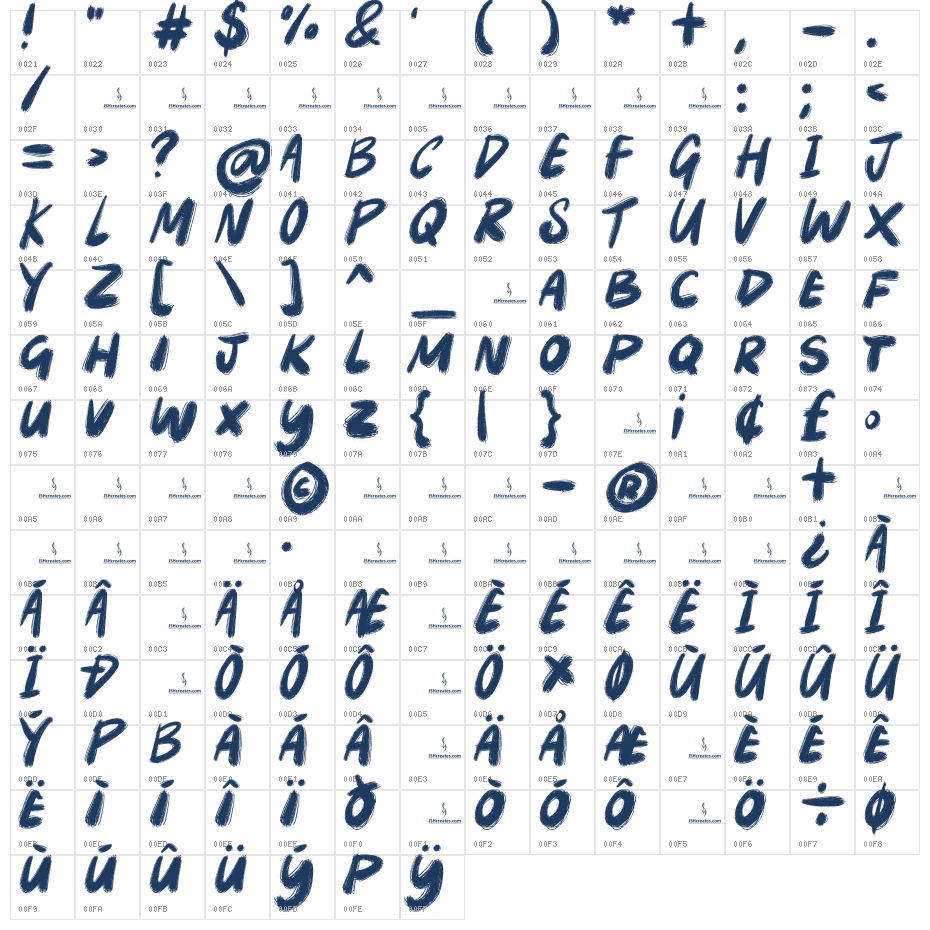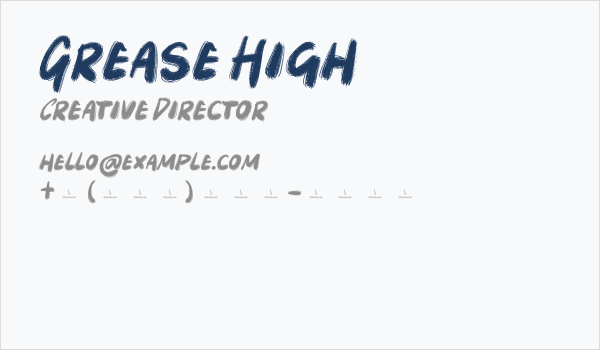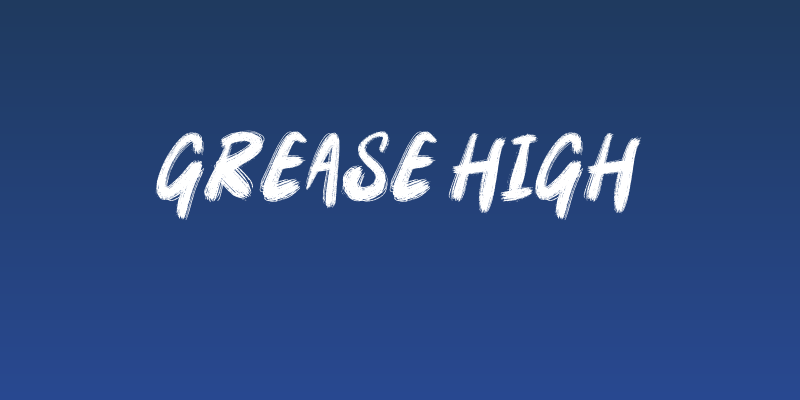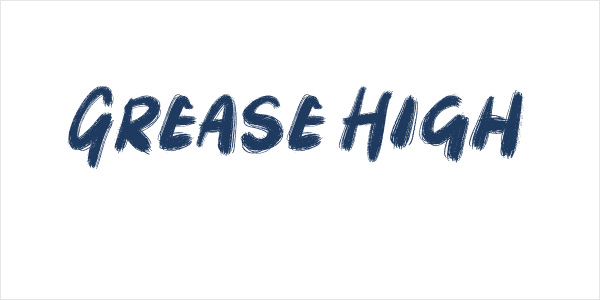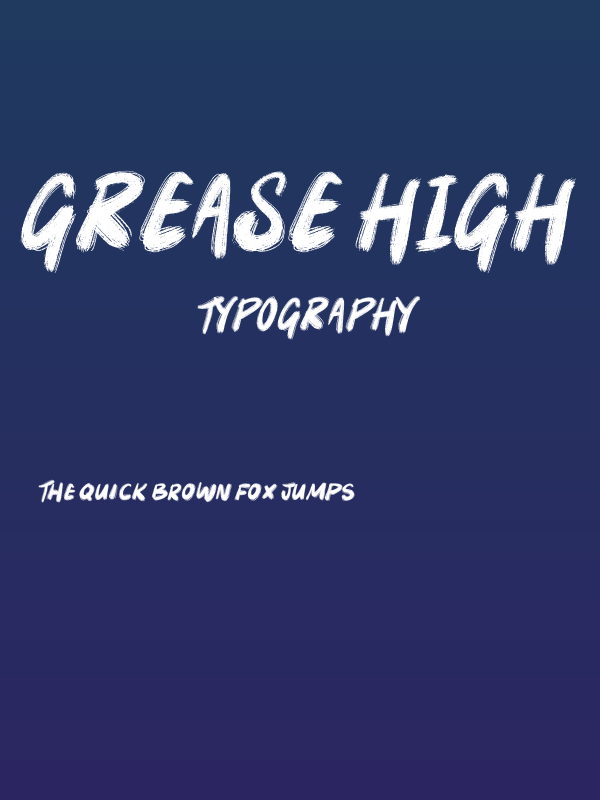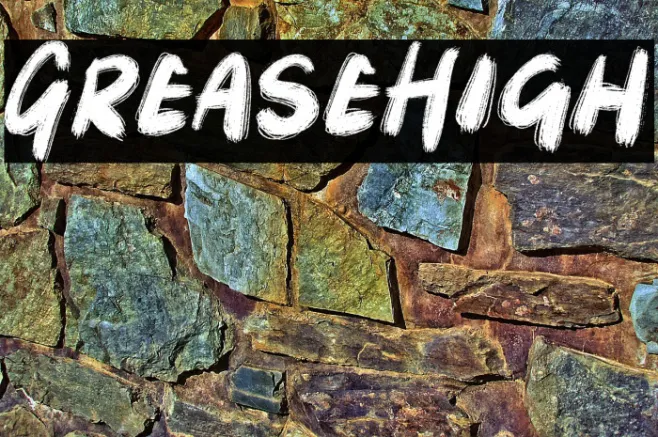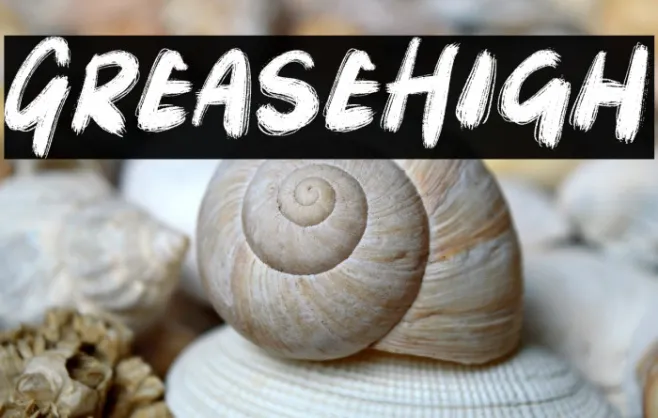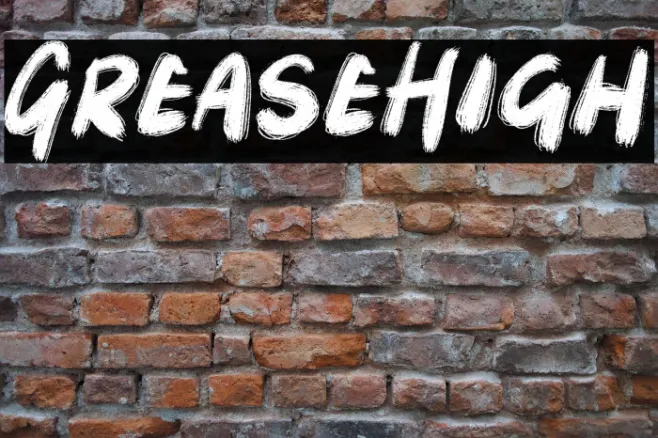
Grease High Font
Grease High Description
A bold, brush-stroke style script font with a casual, handwritten appearance.
Grease High
| Overall Style | Casual, Artistic, Handwritten |
| Use Case | Headlines, Logos, Posters, Creative branding |